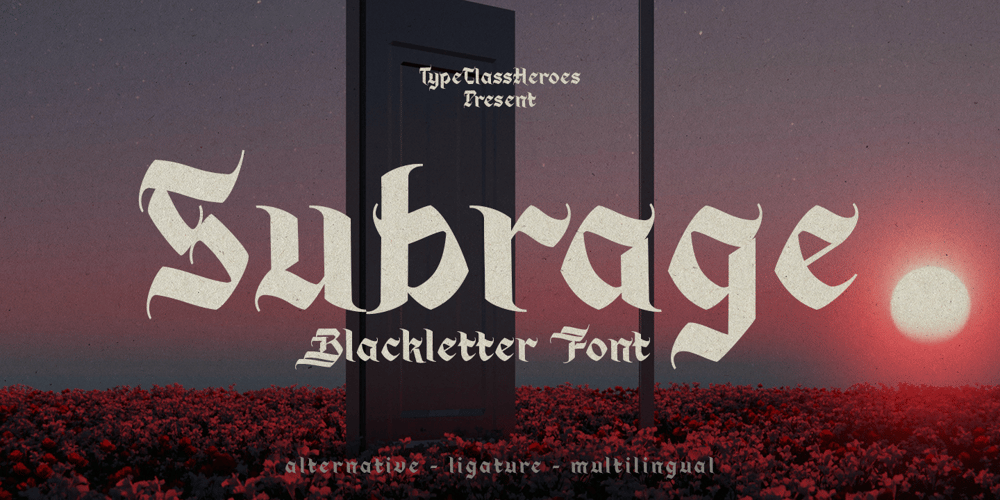
Subrage Font Family was designed by Suandana ipandemade and published by TypeClassHeroes. Subrage contains 1 styles and family package options. Hello, I’m really excited to introduce Subrage.Masterfully designed to become a strong type, this font has the potential to bring each of your creative ideas to the highest level. Come with different style combine with ligatures and special alternative glyphs so you can create a lot with layouts and compositions.Hope you enjoy it.